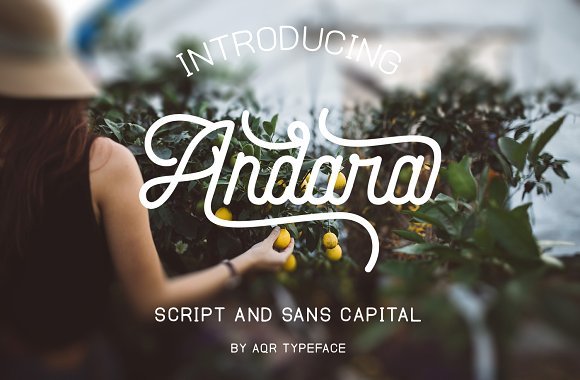
Andara Font
Introducing Andara Font! Andara Script designed by Aqr Typeface, this is a premium font, are sold on creativemarket, but it was great, it is free today for download. Andara is a manual lettering with type soft and sans, These two font script and sans is a great combination for any product and bussines. Andara comfortable for vintage design, classic design, photography, branding design and many more.